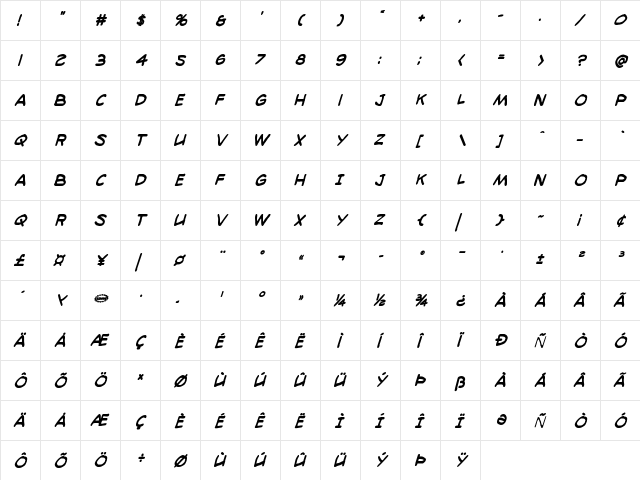
98 Bottles of Beer Bold Condensed Italic Font Preview
Design Context for 98 Bottles of Beer Bold Condensed Italic Typeface
98 Bottles of Beer Bold Condensed Italic is a composed and adaptable typeface that performs quietly and consistently across a wide range of design contexts. Its italic angle brings a sense of urgency and motion to the letterforms. The heavy weight commands attention and anchors typographic hierarchies. The condensed width makes it efficient for tight spaces without sacrificing legibility.
Pro Tip: Use 98 Bottles of Beer Bold Condensed Italic for emphasis, pull quotes, and subheadings where its slanted energy can add rhythm to the layout.